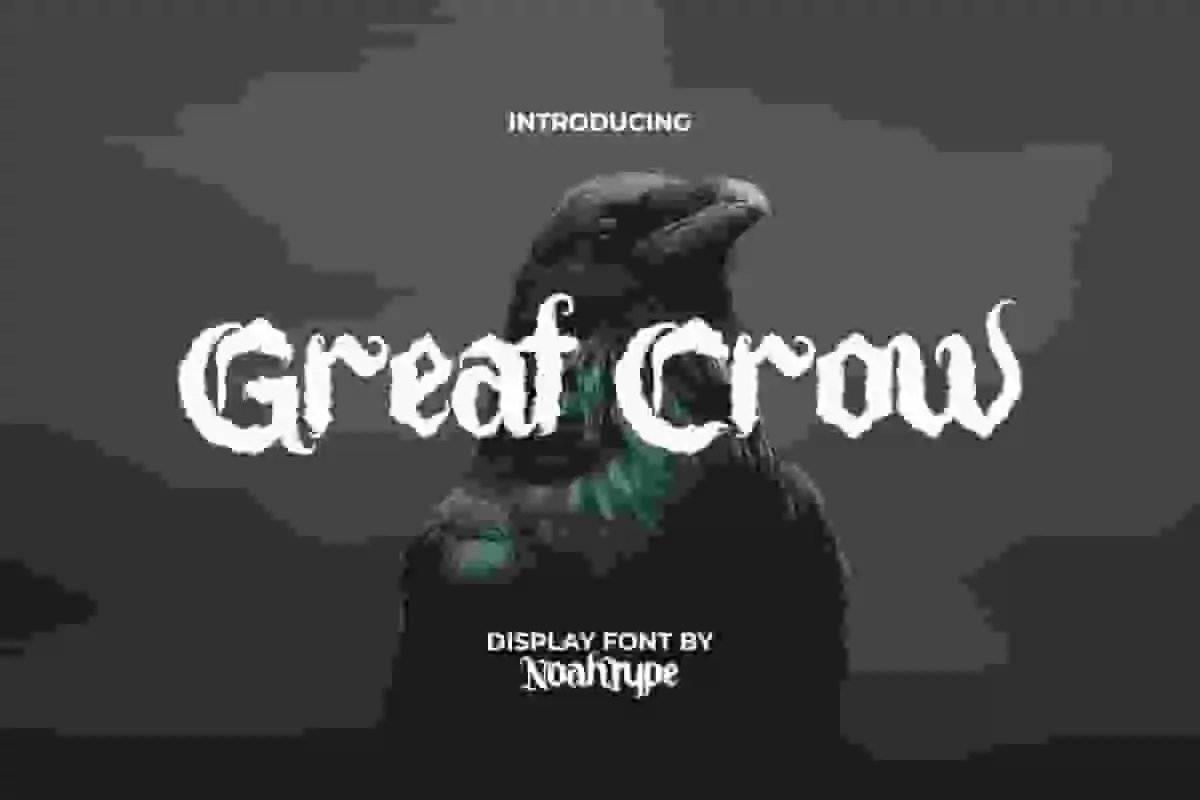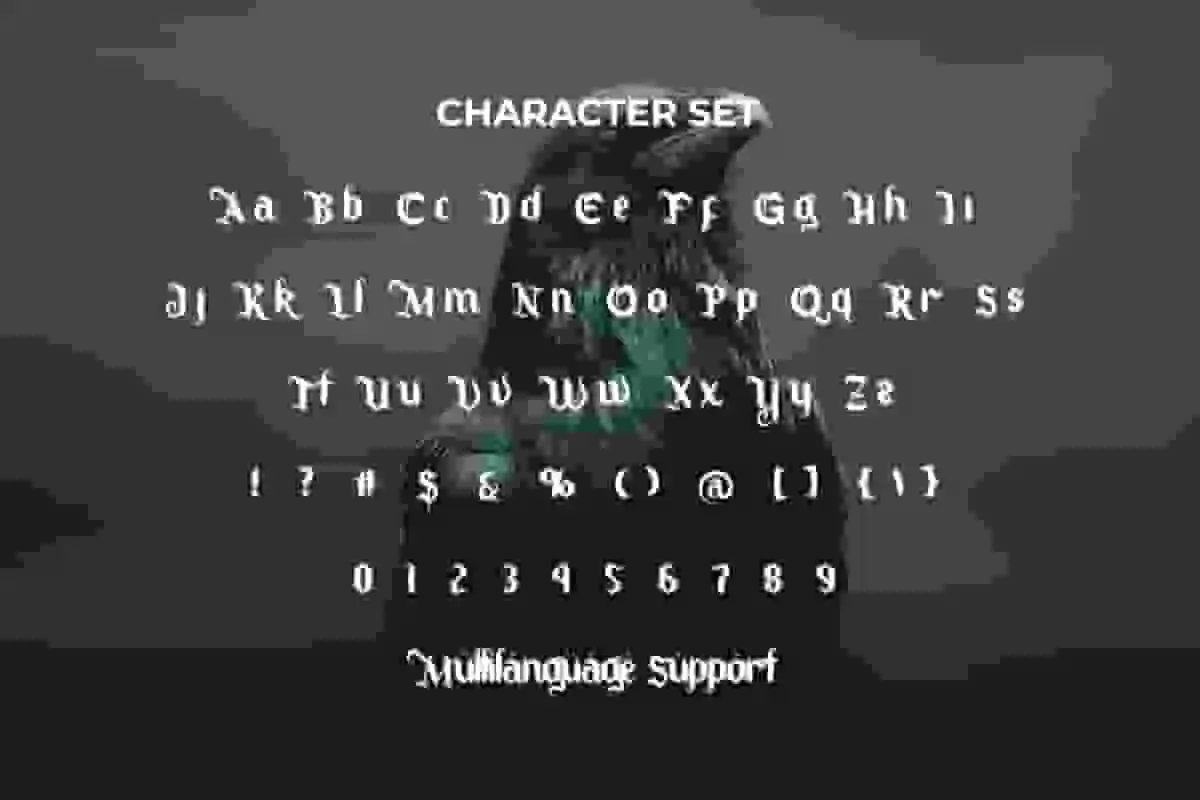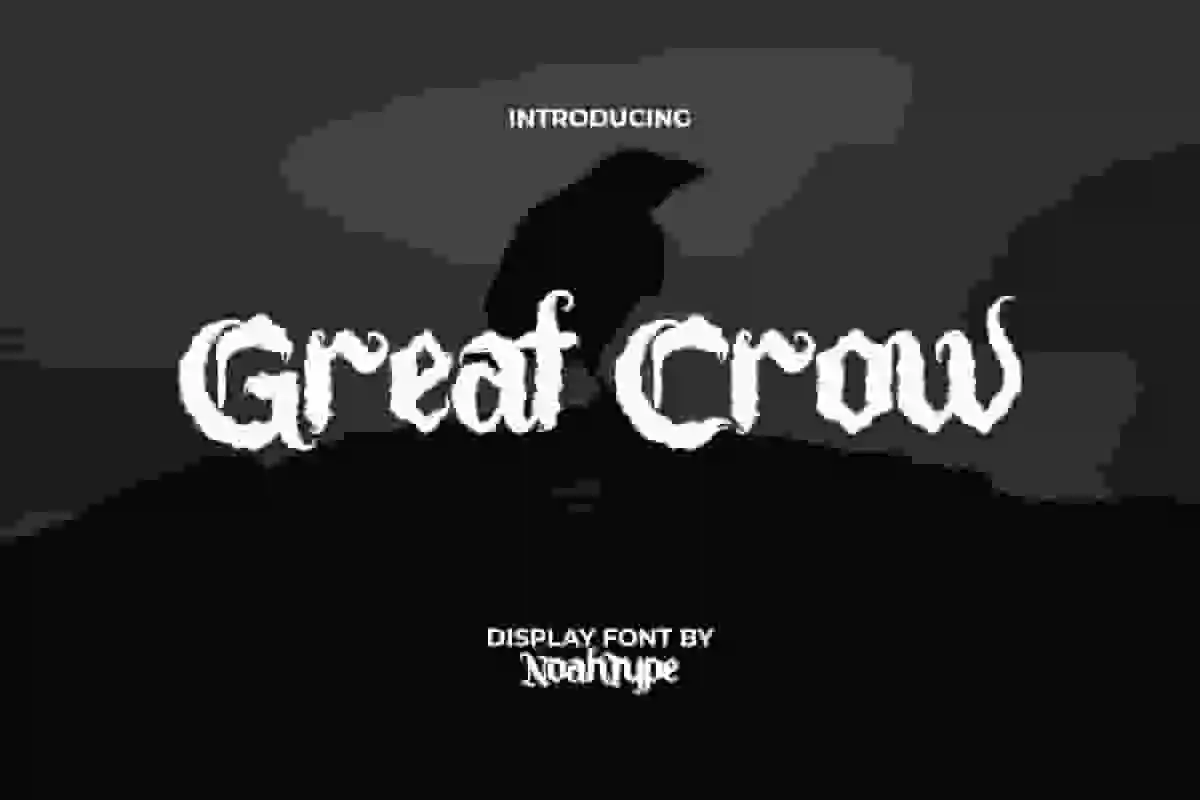
Great Crow Font is a black letter font with smooth and artistic brush strokes by NoahType. This font design is made with high creativity so that it produces a special appearance for each design. It will look good for invitation, label, marketing material, poster, brand image, cover, custom design, printing, product packaging, quotes, signage, stationery, website, and many more!
Great Crow Font includes full set of ALL CAPS for Uppercase and Lowercase Basic Characters, Numerals, Punctuation, and Symbol. This mysterious font will make your design awesome and also a perfect choice for many industries, such as fashion, accessories, advertising, event or festival, art, café, game, movie, music, printing, publishing, etc.